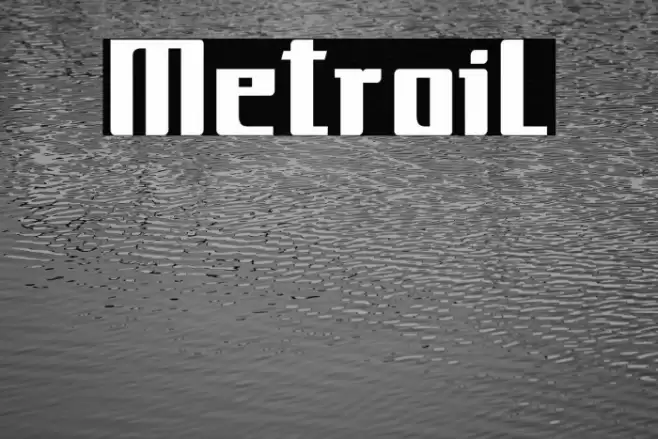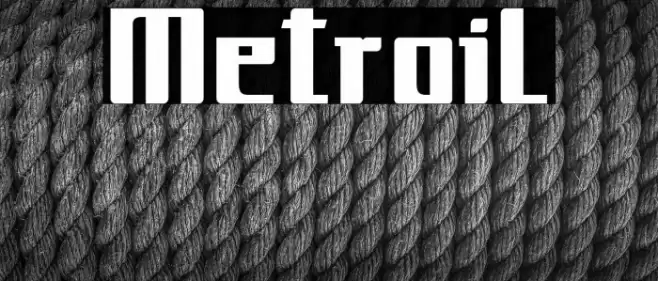
MetroiL Font
MetroiL Description
This font features a bold and geometric design with a modern and industrial feel. The characters are constructed with strong, straight lines and sharp angles, giving it a robust and impactful appearance. The uppercase letters are particularly striking, with a uniform height and width that create a cohesive and balanced look. The lowercase letters maintain the same geometric style, ensuring consistency across the typeface. Numbers and special characters are designed to match the boldness and angularity of the alphabet, making this font suitable for a variety of applications where a strong visual presence is desired.
A bold, geometric font with a modern, industrial style from Uncategorized fonts.
- Proposed Projects: Ideal for branding, posters, headlines, and signage where a strong, modern aesthetic is needed.